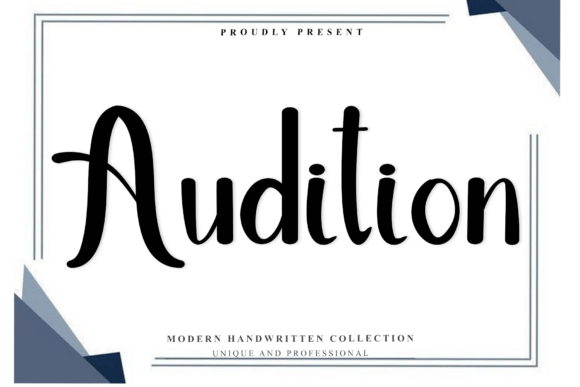
The Elusive Perfect Font: My Encounter with Audition
I’ll never forget the time I was working on a branding project for a pet grooming business. My client wanted a font that was not only elegant and soothing but also playful and friendly. I spent hours scouring through font libraries, but nothing seemed quite right. That was when I stumbled upon Audition, a beautiful handwritten script font that stole my heart. In this article, I’ll share my experience with Audition, its unique features, and how you can make the most of it in your designs.
A First Impression: What I Love About Audition
Audition is a graceful and light modern handwritten script font that exudes a subtle, sweet, and authentic handwritten feel. Here are some things that I love about it:
- ✨ Slender, flowing lines that give it a delicate and feminine touch
- ✅ Adorable small loops and ligatures that add a playful and whimsical feel
- 🌸 Effortlessly chic and feminine aesthetic that’s perfect for designs that require a touch of elegance
- 💕 Unique and professional typeface that’s sure to make your designs stand out
While Audition is an amazing font, it’s not without its limitations. Here are a few things to keep in mind:
- 🤔 Legibility at small sizes: While Audition is beautiful, it can be a bit tricky to read at very small sizes. Make sure to test it in your design to ensure it’s legible.
- ⚠️ Limited use in formal designs: Audition is a very elegant and feminine font, which means it may not be the best choice for formal or corporate designs.
- Lobster: A elegant and refined script font with a similar feel to Audition. Use it for designs that require a touch of sophistication.
- Pacifico: A beautiful and modern script font with a similar flowing feel to Audition. Use it for designs that require a touch of elegance and playfulness.
- Great Vibes: A elegant and refined script font with a similar feel to Audition. Use it for designs that require a touch of sophistication and whimsy.
- Alex Brush: A beautiful and elegant script font with a similar feel to Audition. Use it for designs that require a touch of elegance and refinement.
The Story Behind Audition
Audition was designed by a talented type designer who wanted to create a font that was both elegant and playful. Inspired by the beauty of handwritten scripts, the designer spent countless hours perfecting the curves and lines of Audition. The result is a font that’s both refined and whimsical, perfect for designs that require a touch of elegance and playfulness.
- Q: What is Audition font?
- A: Audition is a modern handwritten script font characterized by its slender, flowing lines and adorable small loops and ligatures.
- Q: What is Audition best used for?
- A: Audition is perfect for delicate branding, pet-themed merchandise, personalized stationery, lifestyle blogs, and any design that requires a gentle, graceful, and appealingly sweet touch.
- Q: Is Audition easy to read?
- A: Audition is generally easy to read, but it can be a bit tricky at very small sizes. Make sure to test it in your design to ensure it’s legible.